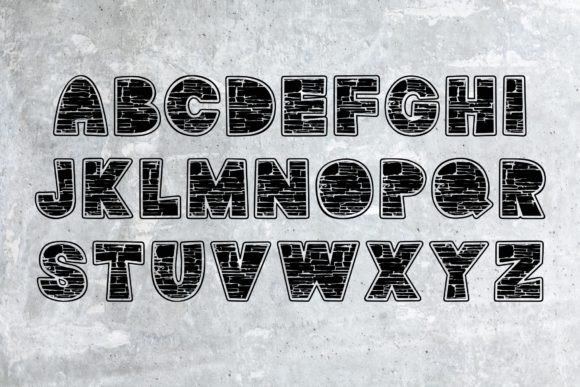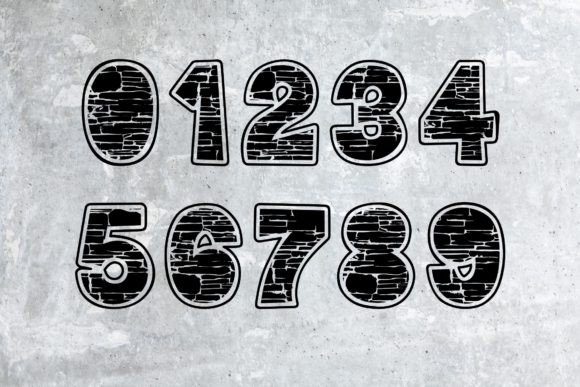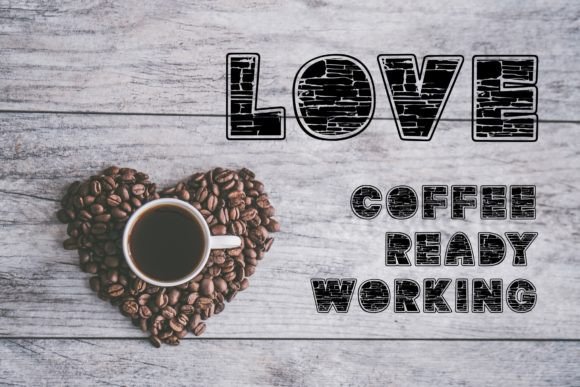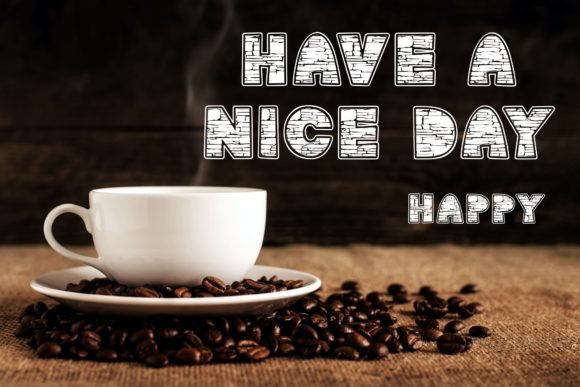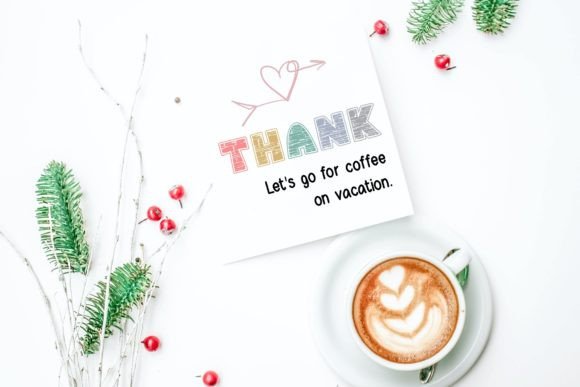
Grunge Line Font: The Ultimate Decorative Font for Designers and Crafters
Are you tired of using the same old fonts for your design projects? Do you want to add a touch of edginess and personality to your logos, branding, and social media graphics? Look no further than the Grunge Line Font! This decorative font is perfect for designers and crafters who want to add a unique and creative twist to their work.
What is Grunge Line Font?
Grunge Line Font is a decorative font that features a distinctive grungy texture with rough, uneven lines. This font is designed to give your text a worn, vintage look that’s perfect for creating eye-catching graphics and designs. Whether you’re working on a logo, brochure, or social media graphic, Grunge Line Font is sure to make your text stand out.
Features of Grunge Line Font
Grunge Line Font has several features that make it a versatile and practical choice for designers and crafters. Some of its key features include:
- Unique texture: The grungy texture of this font gives it a distinctive look that’s unlike any other font.
- High-quality design: The font is designed with high-quality lines and curves, making it perfect for use in a variety of design projects.
- Multipurpose: This font can be used for a wide range of design projects, from logos and branding to social media graphics and crafty DIY projects.
Uses of Grunge Line Font
Grunge Line Font is a versatile font that can be used for a wide range of design projects. Here are some ideas for using this font:
- Logos and branding: Use Grunge Line Font to create a unique and memorable logo for your business or brand.
- Social media graphics: Add a touch of personality to your social media graphics with this eye-catching font.
- Crafty DIY projects: Use Grunge Line Font to add a personal touch to your crafty DIY projects, such as handmade cards and gift tags.
- Brochures and flyers: Use this font to create eye-catching brochures and flyers that will grab the attention of your target audience.
Benefits of Using Grunge Line Font
There are several benefits to using Grunge Line Font for your design projects. Some of the benefits include:
- Unique look: This font has a unique look that’s sure to make your designs stand out.
Tips for Using Grunge Line Font
Here are some tips for using Grunge Line Font effectively:
- Use it sparingly: While Grunge Line Font is a beautiful font, it can be overwhelming if used too much. Use it sparingly to add a touch of personality to your designs.
- Pair it with other fonts: Pair Grunge Line Font with other fonts to create a unique and visually appealing design.
- Experiment with colors: Experiment with different colors to find the perfect combination that works with your design.